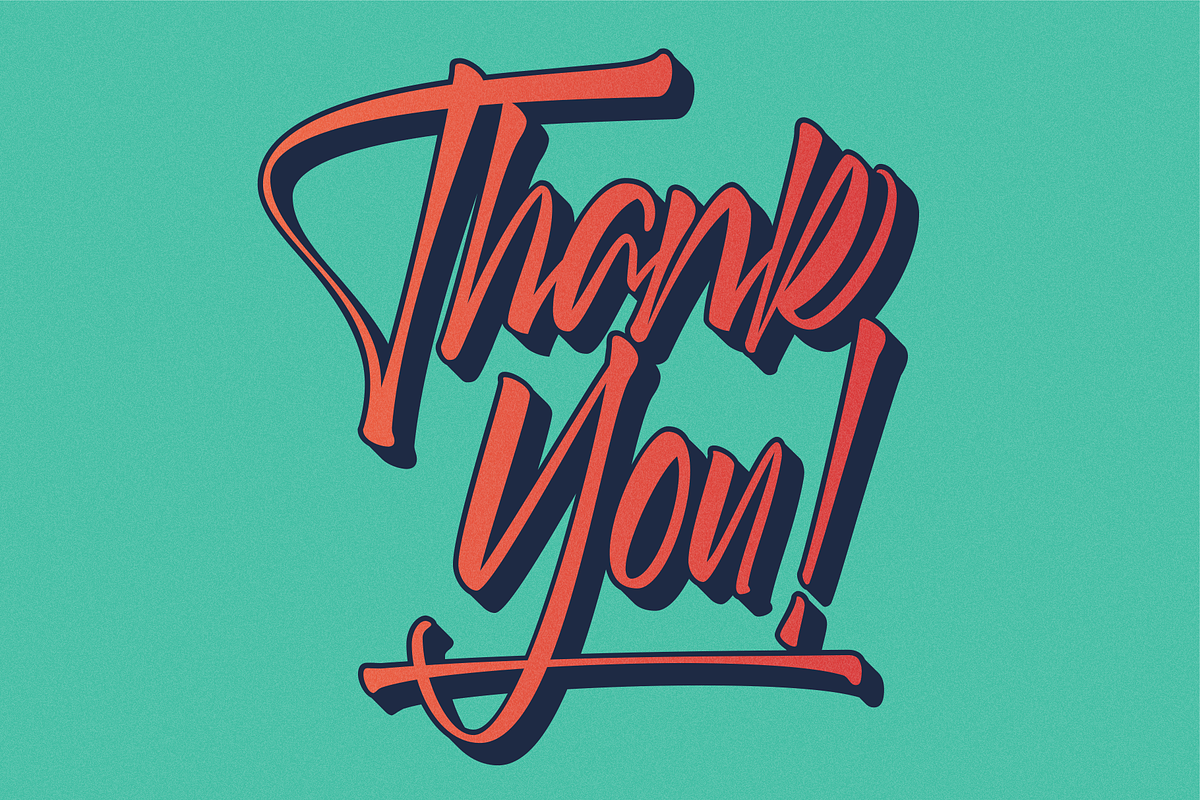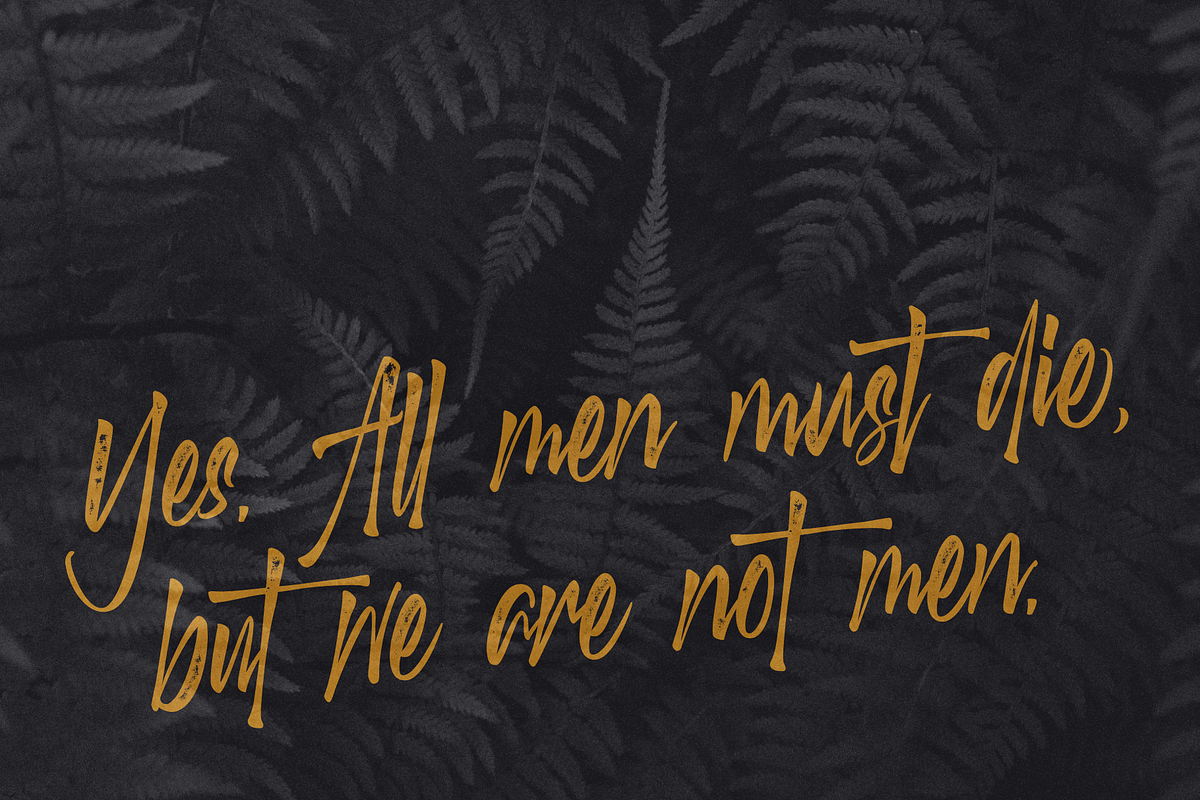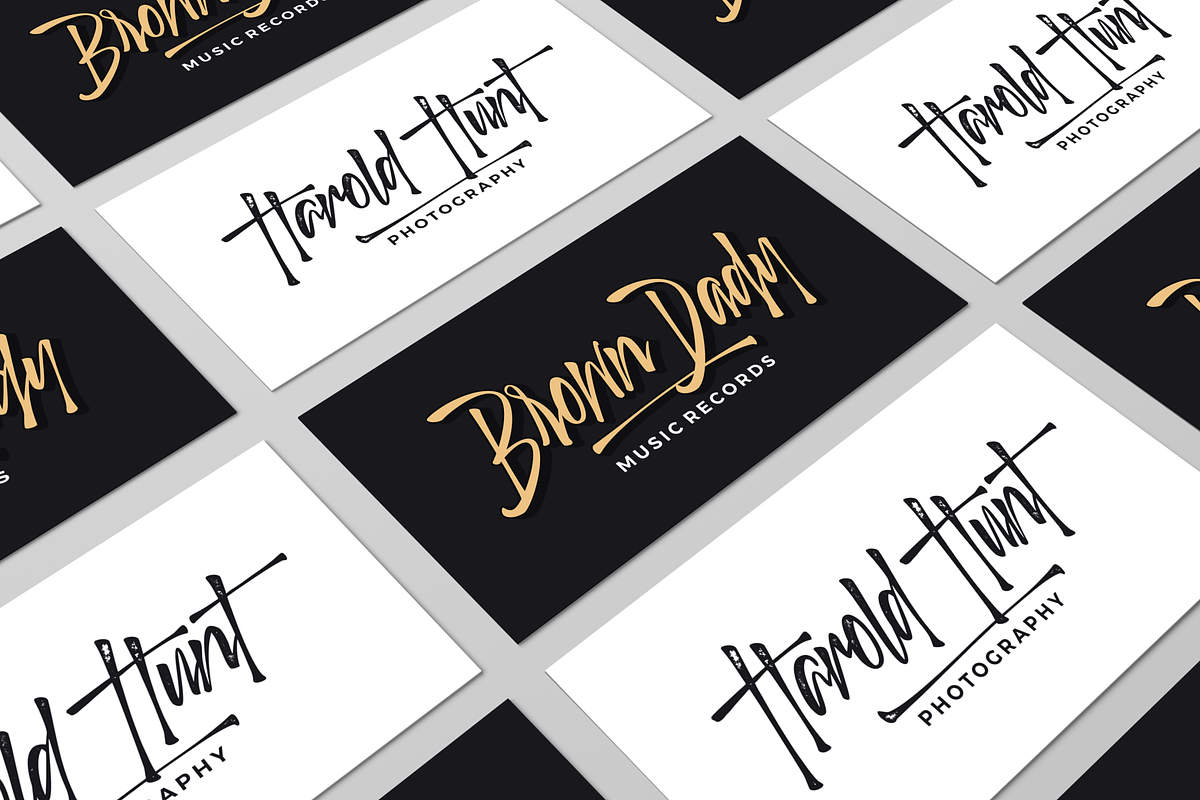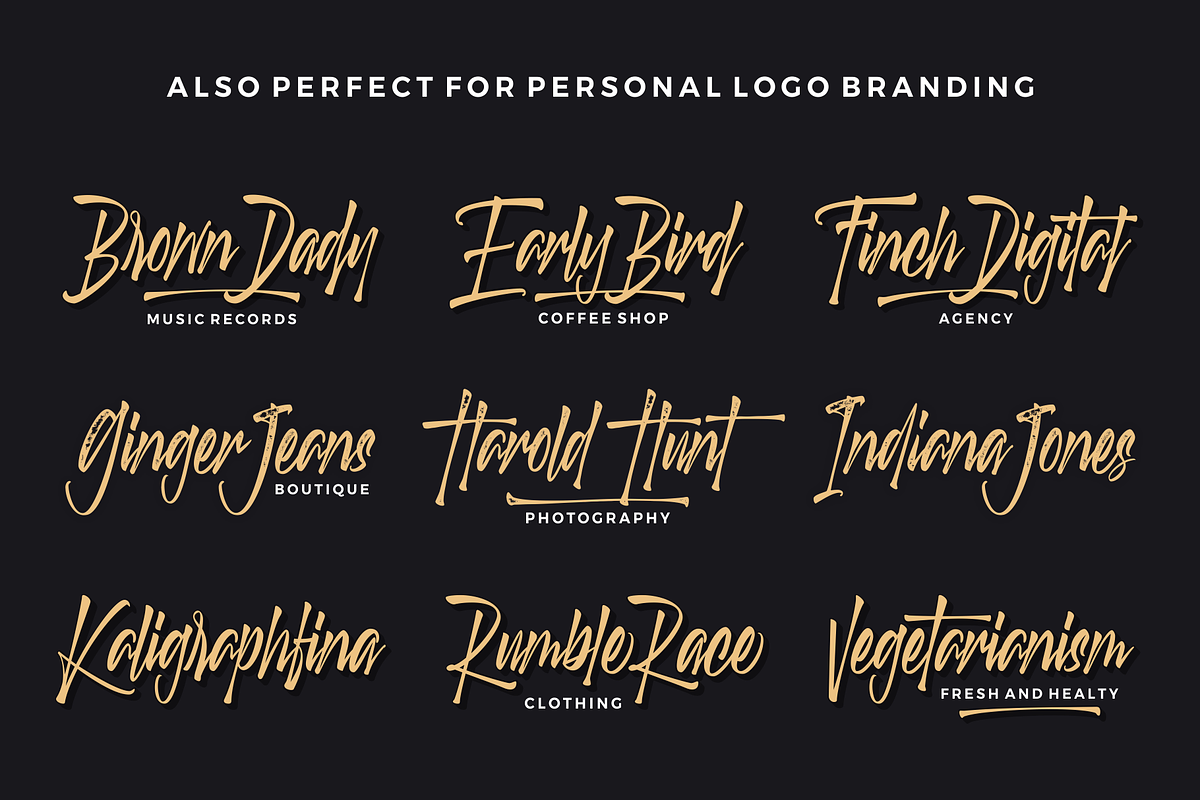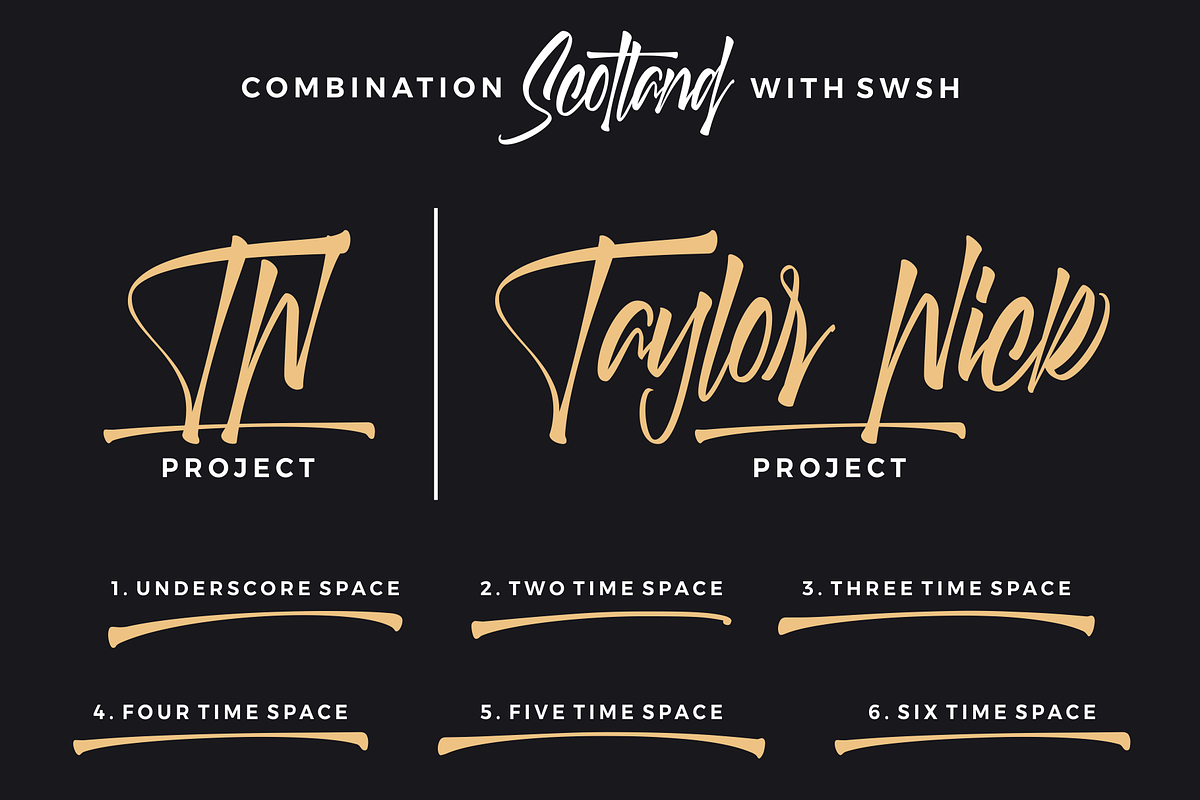
Scotland Stories | Modern Script
Scotland Stories is a Modern Script with fast brushstrokes that make it look elegant and unique. It has a signature style that makes it perfect for logos, branding, print, apparel, and much more. There are also 2 different types: regular, which has no variations, and stamp, which includes a pattern as shown above. Scotland Stories is the perfect font to give your projects a very special look.
Scotland Stories features:
- A full set of upper & lowercase characters
- Stylistic alternate